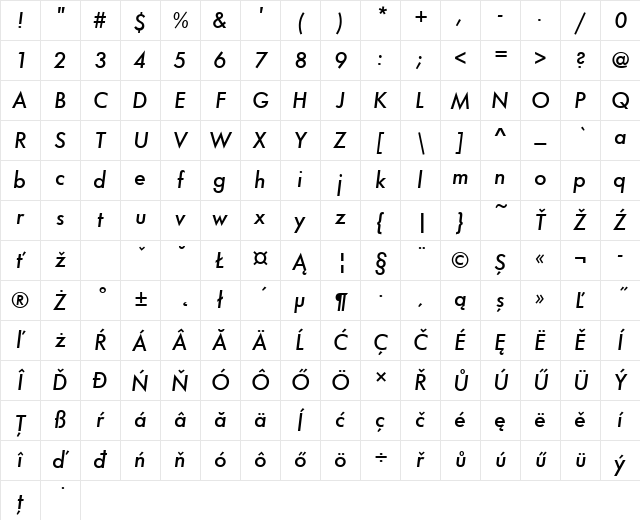
FuturaTEEMed Italic Free Font
FuturaTEEMed Italic
Design Context for FuturaTEEMed
FuturaTEEMed has a distinctly futuristic character, with geometric precision and clean angles that feel at home in technology, gaming, and sci-fi contexts. The slanted form adds forward momentum and visual energy.